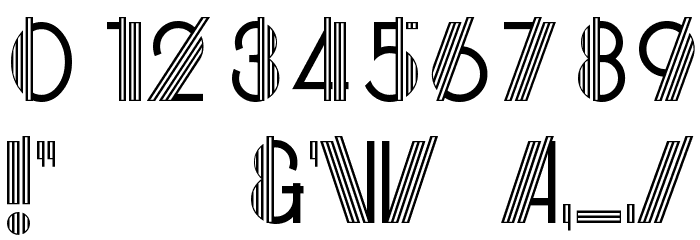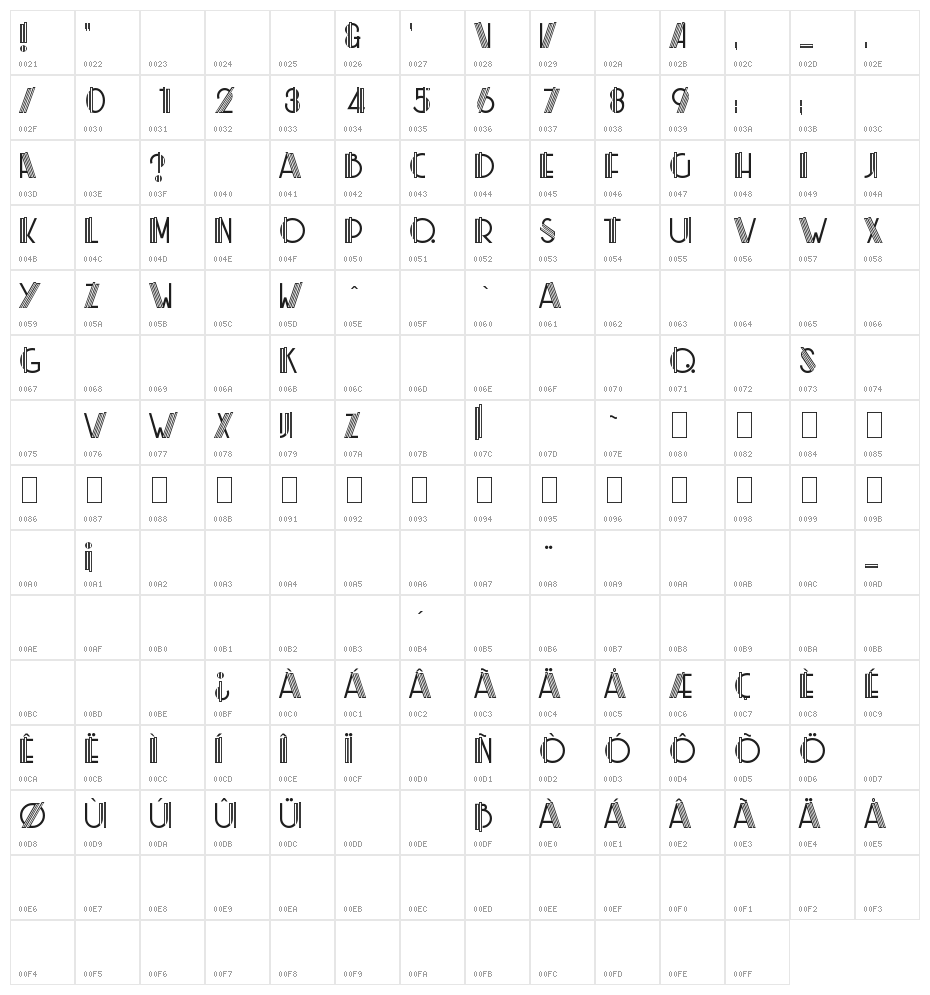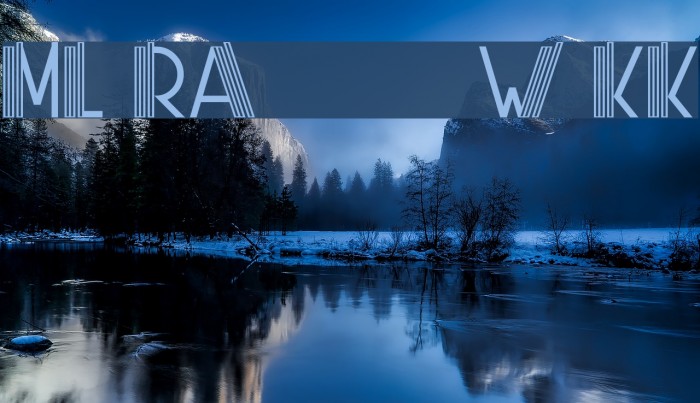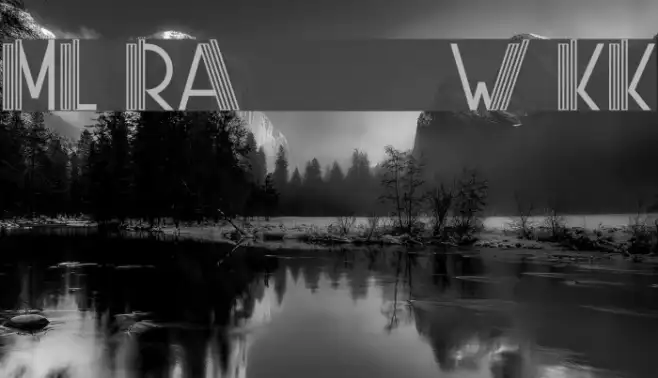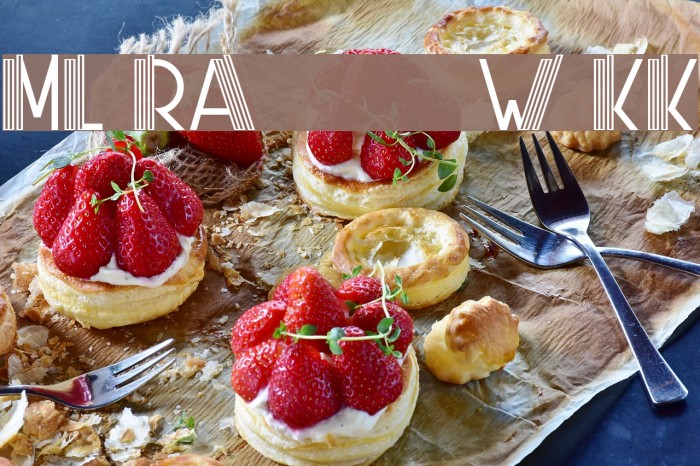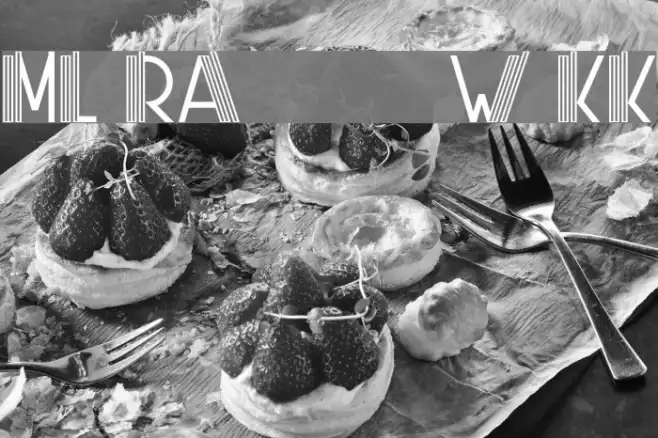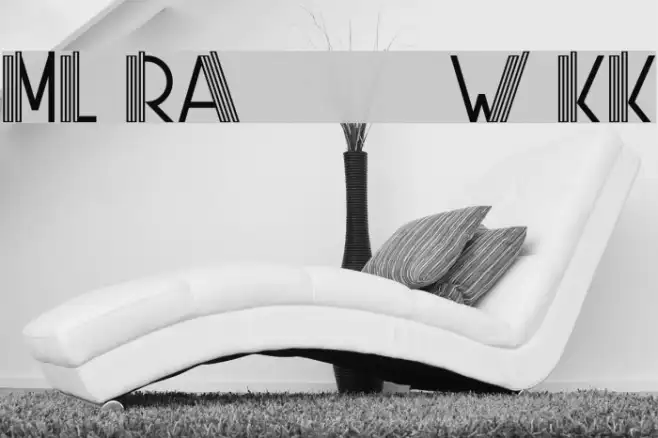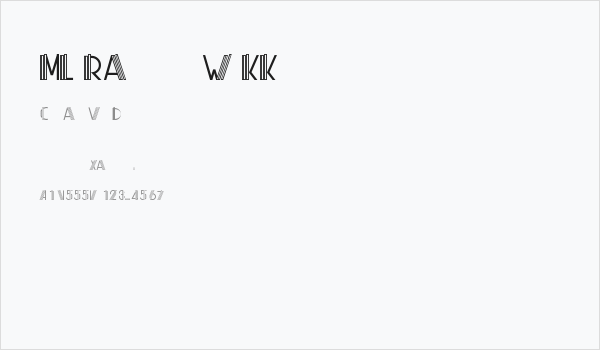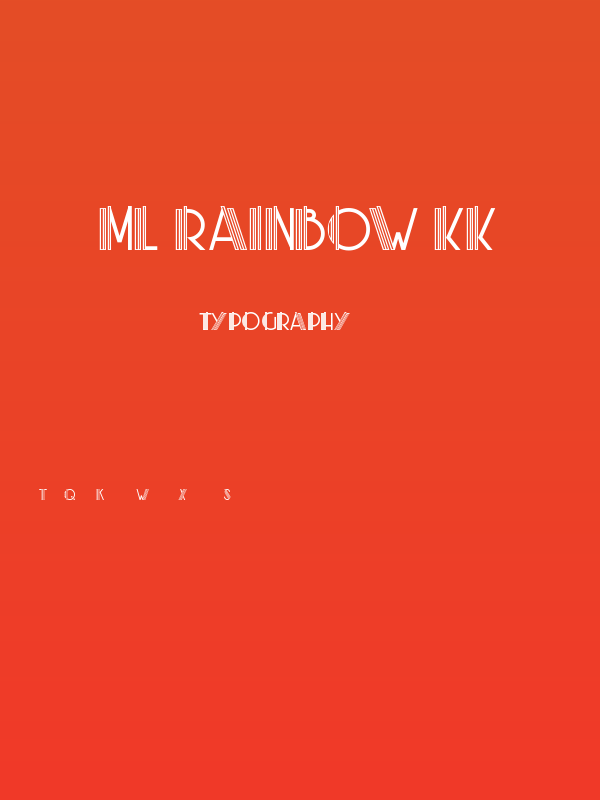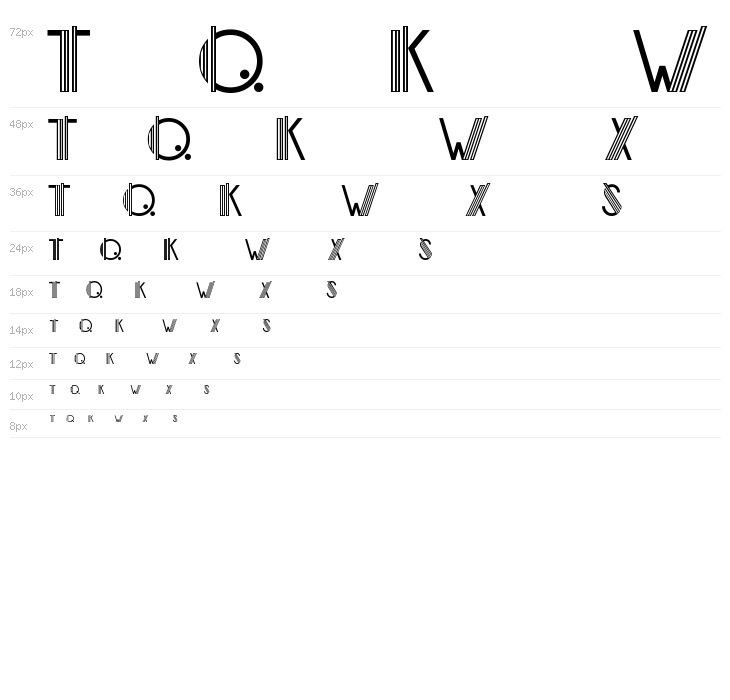
ML Rainbow KK Font
ML Rainbow KK Description
This font features a unique and striking design characterized by its use of vertical and horizontal lines to create a sense of movement and rhythm. Each character is composed of multiple parallel lines, giving it a layered and dimensional appearance. The uppercase letters are bold and structured, while the lowercase letters maintain the same stylistic elements but with a slightly more compact form. Numbers and special characters follow the same design principles, ensuring consistency throughout. The font's geometric and modern aesthetic makes it stand out, suitable for projects that require a bold and artistic touch.